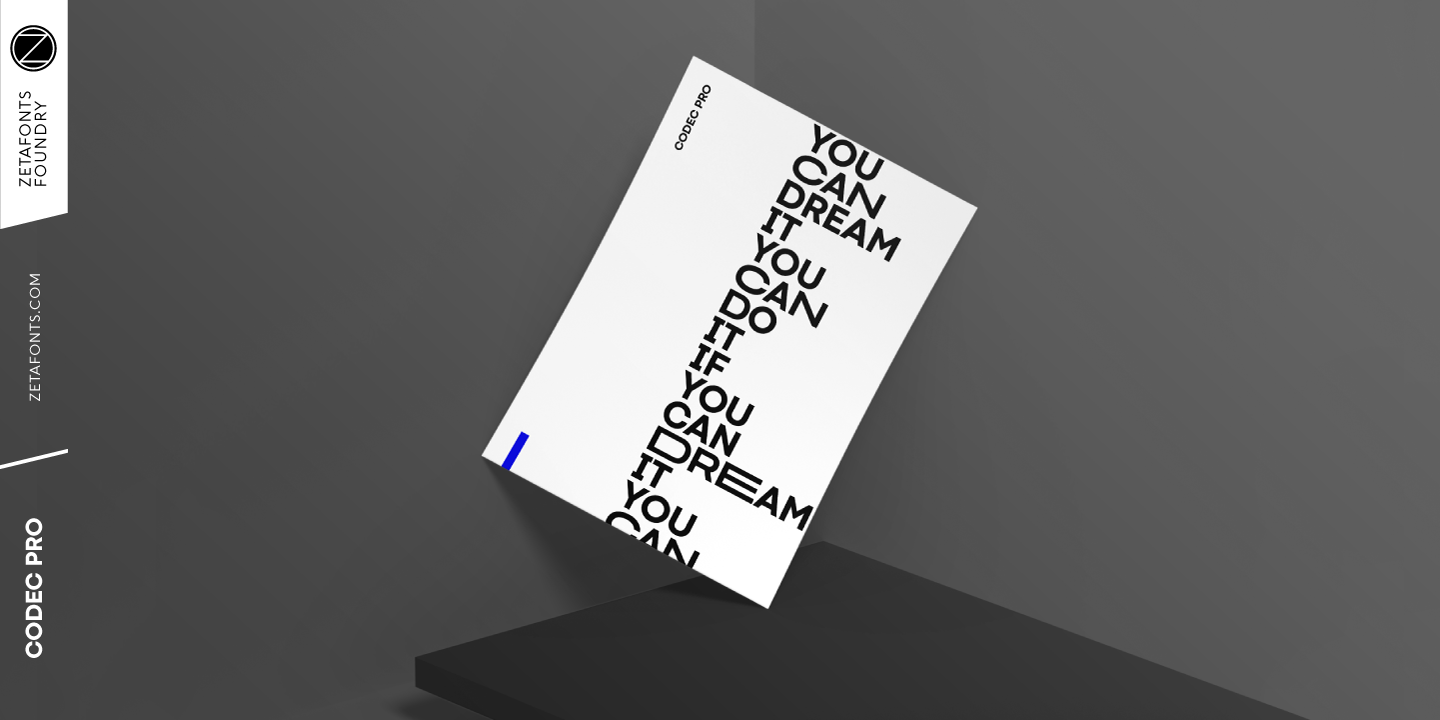
About Codec Pro
- Foundry
- ZETAFONTS
- Classification
- sans-serif
- Style
- geometric
Codec Pro is a versatile sans-serif typeface from ZETAFONTS. With its clean lines and modern geometric proportions, Codec Pro works effectively across digital interfaces, print materials, and brand identities. The typeface balances neutral character shapes with subtle personality, making it adaptable to many design contexts. Its geometric construction gives it a precise, engineered appearance that resonates with technology and innovation brands.